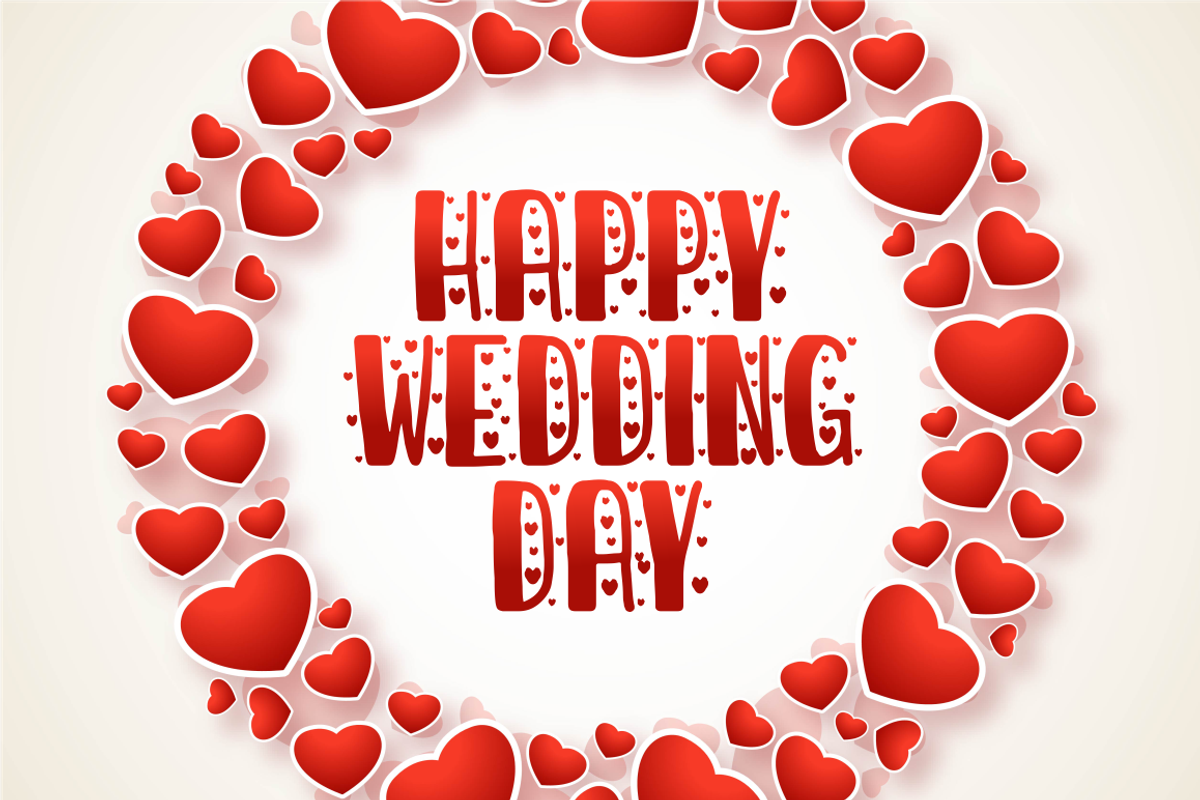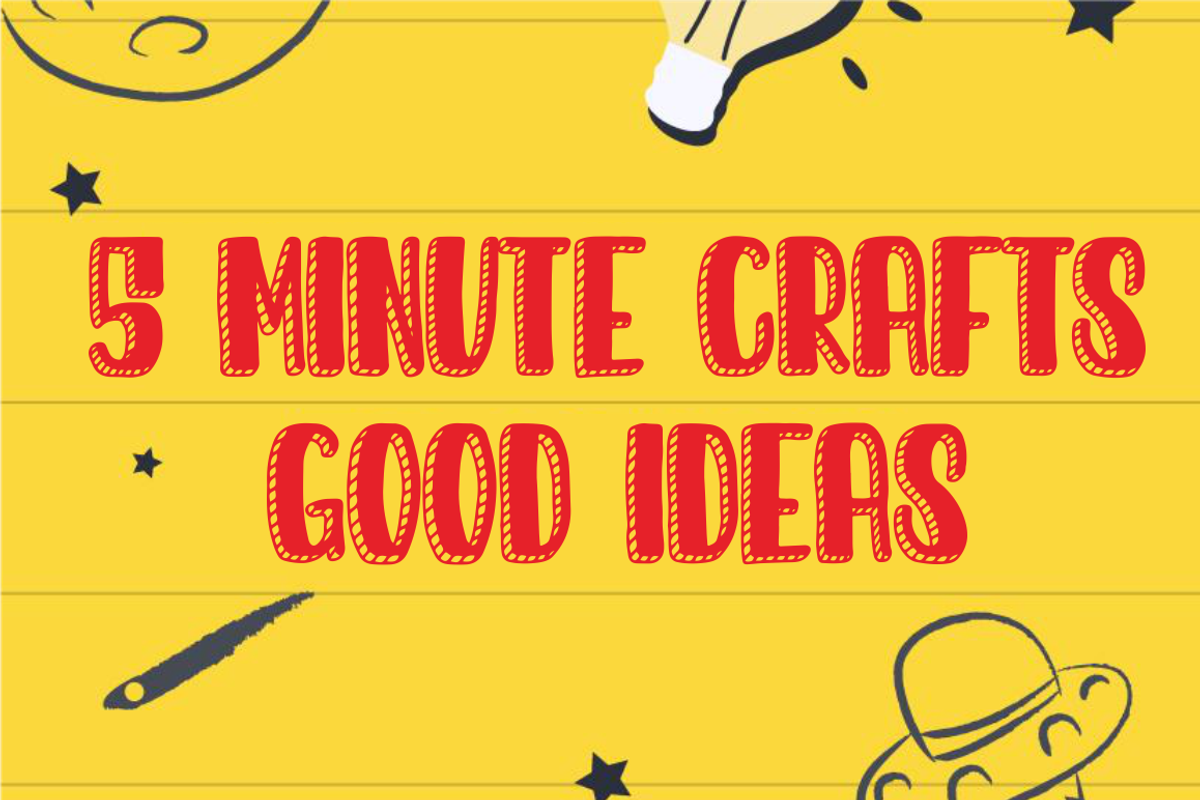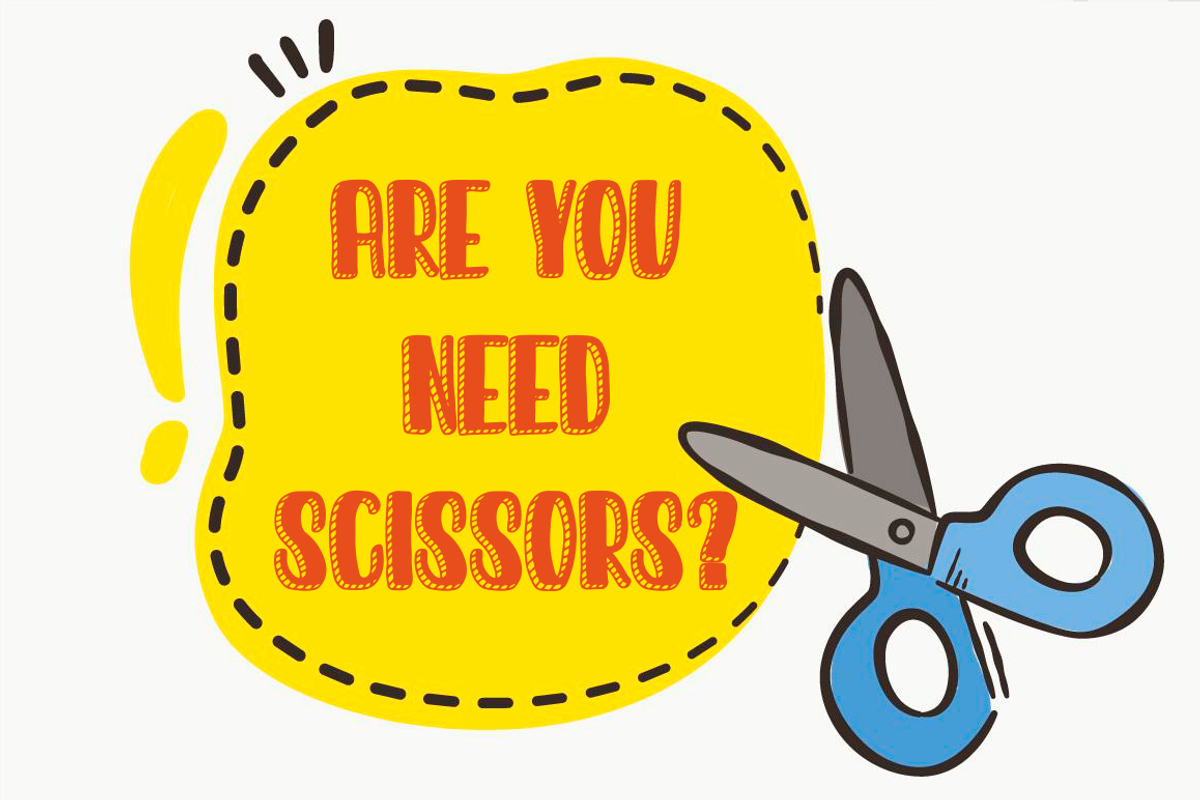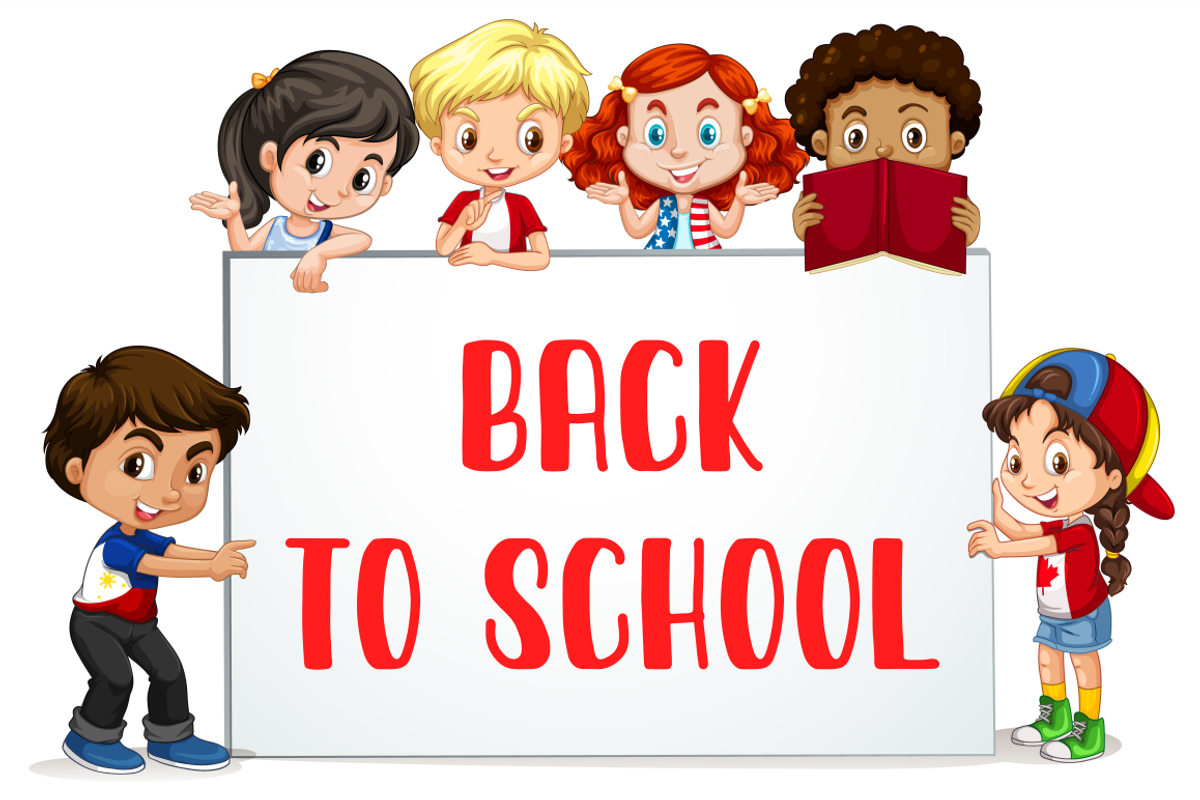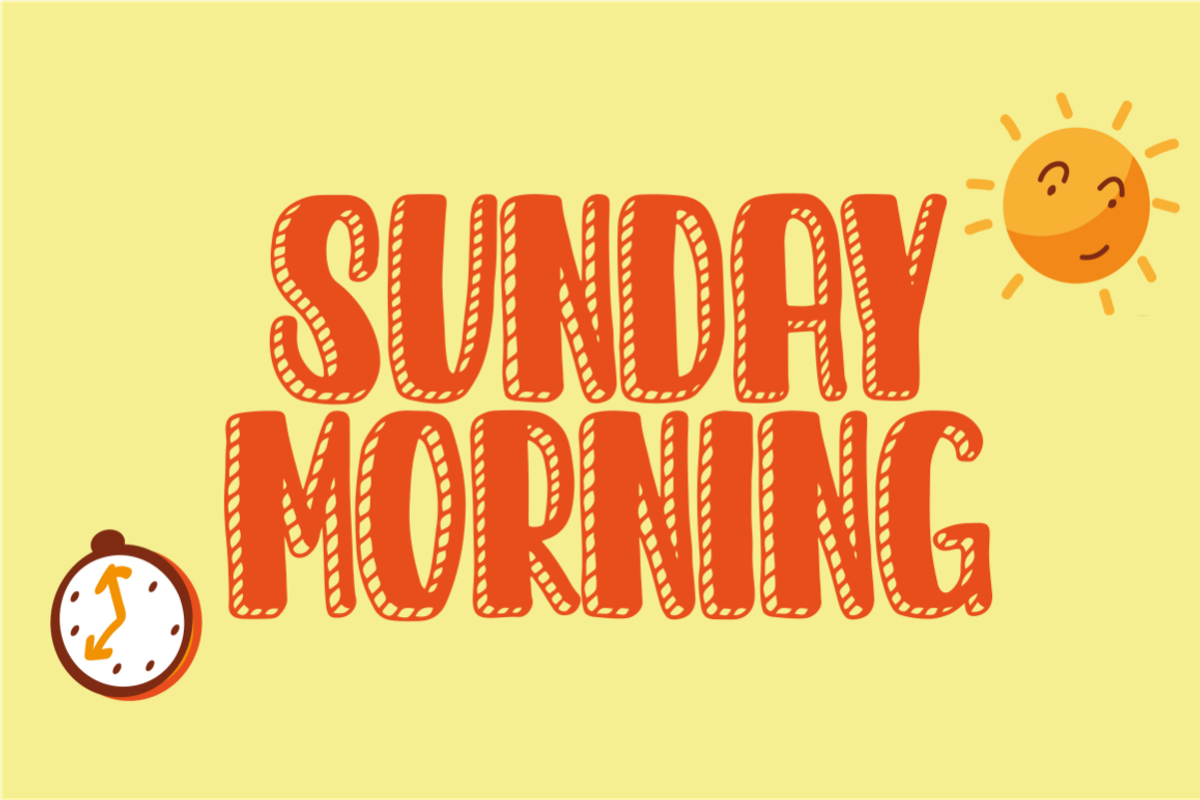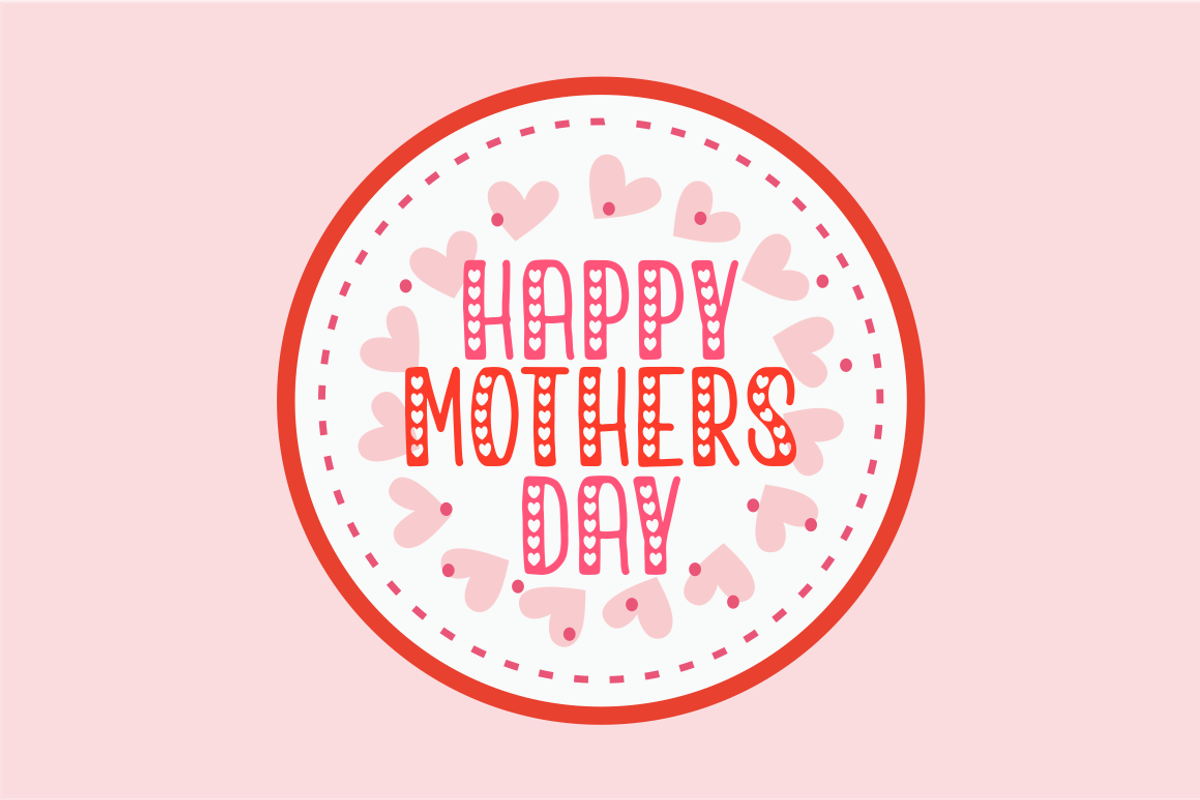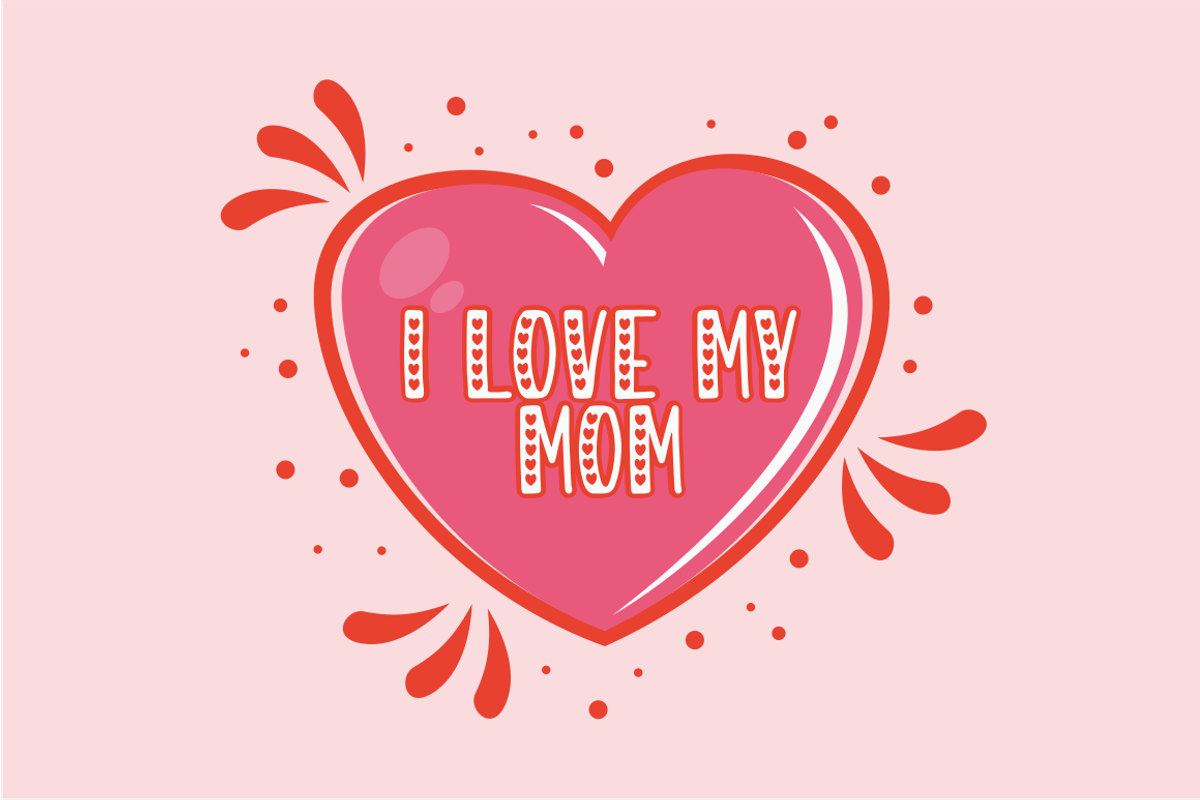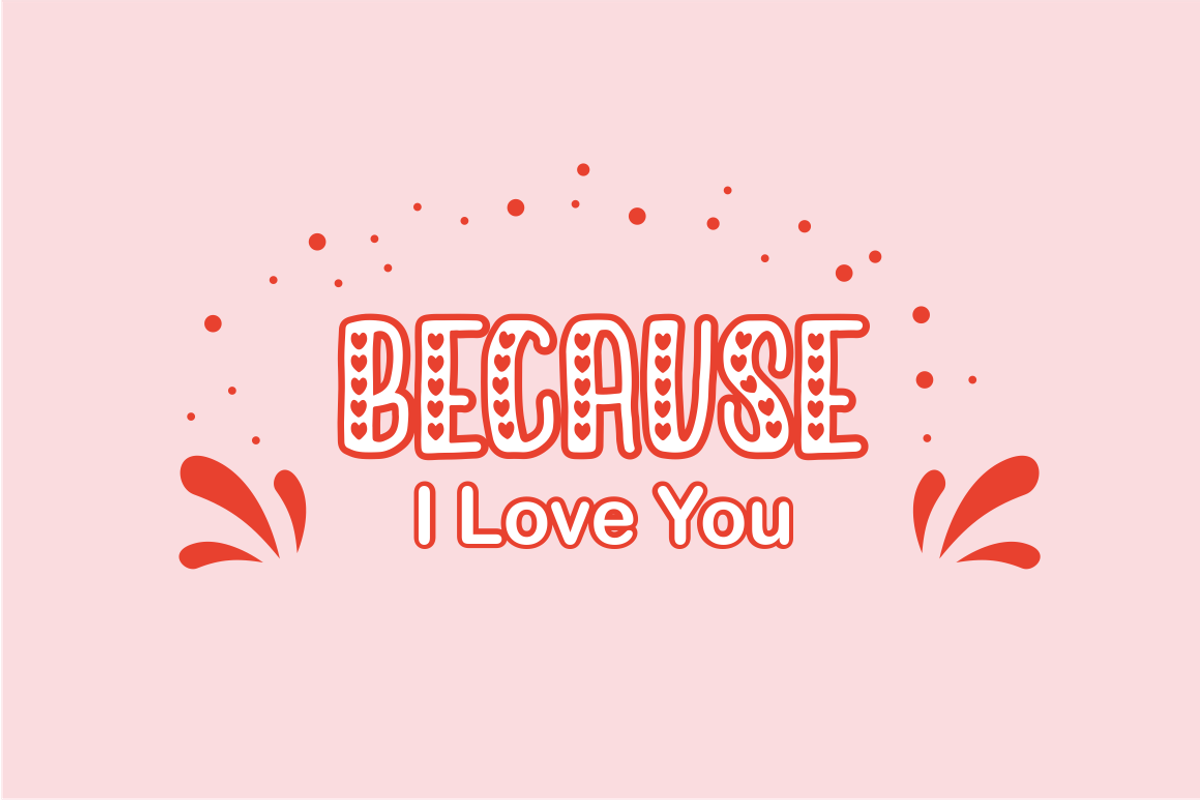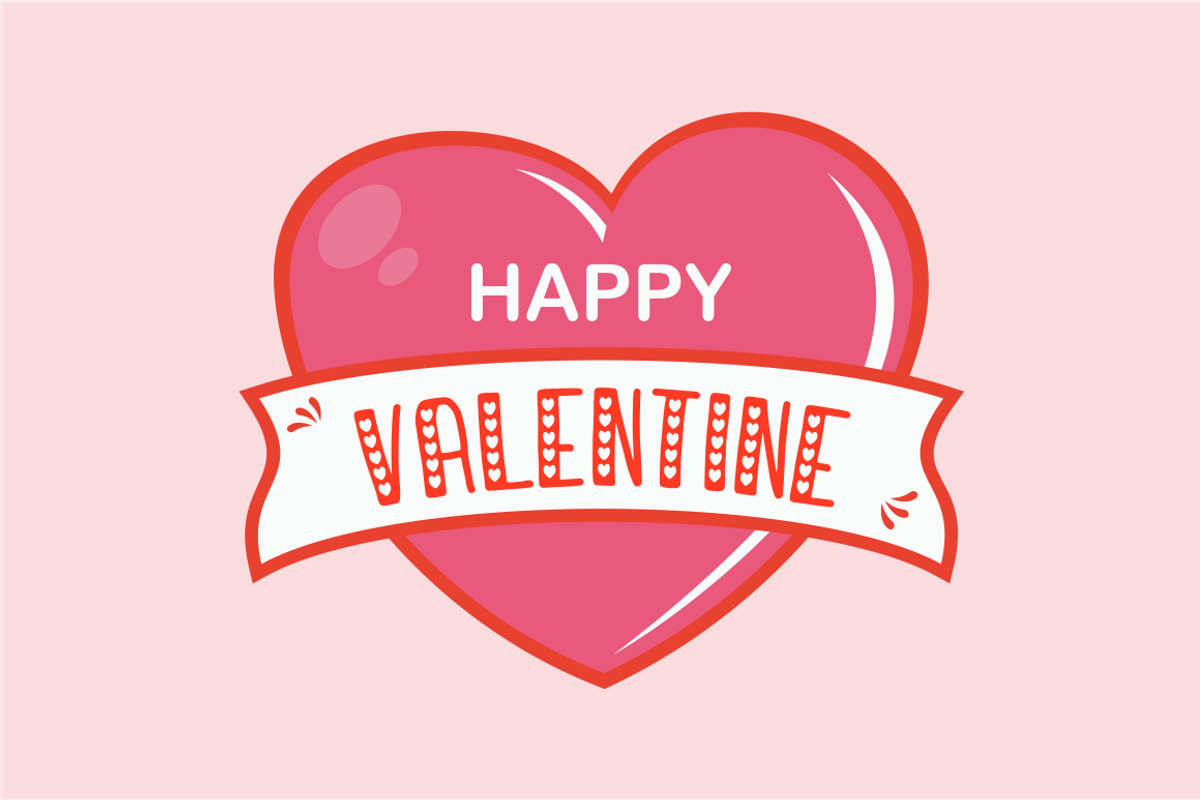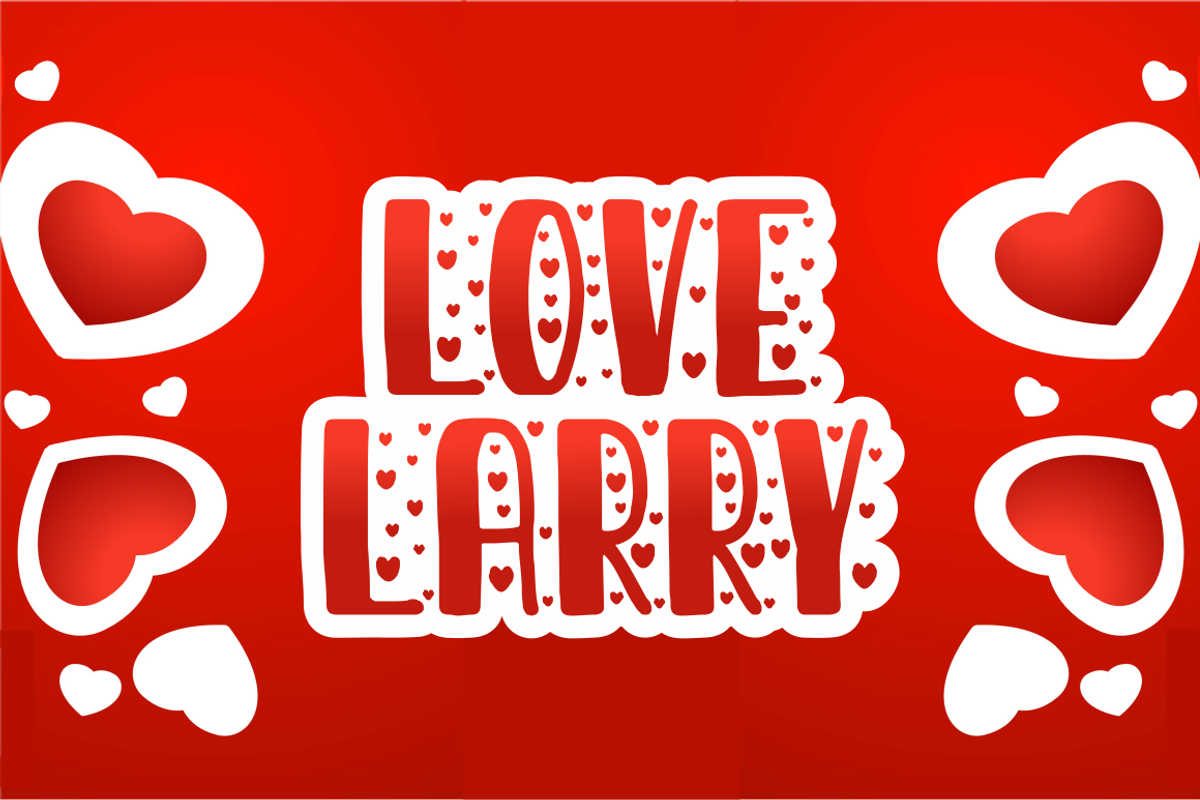
Sunday Best - 4 Style Fonts
Sunday Best - 4 Style Fonts are font designs that are made for various vector designs, printing such as digital wedding invitations, blogs, online shops, social media, while printing can be used in the field of product clothing, accessories, bags, pins, logos, business cards, watermarks and many others ...
so it can make your product look elegant and attractive, and also Multilingual support!!!